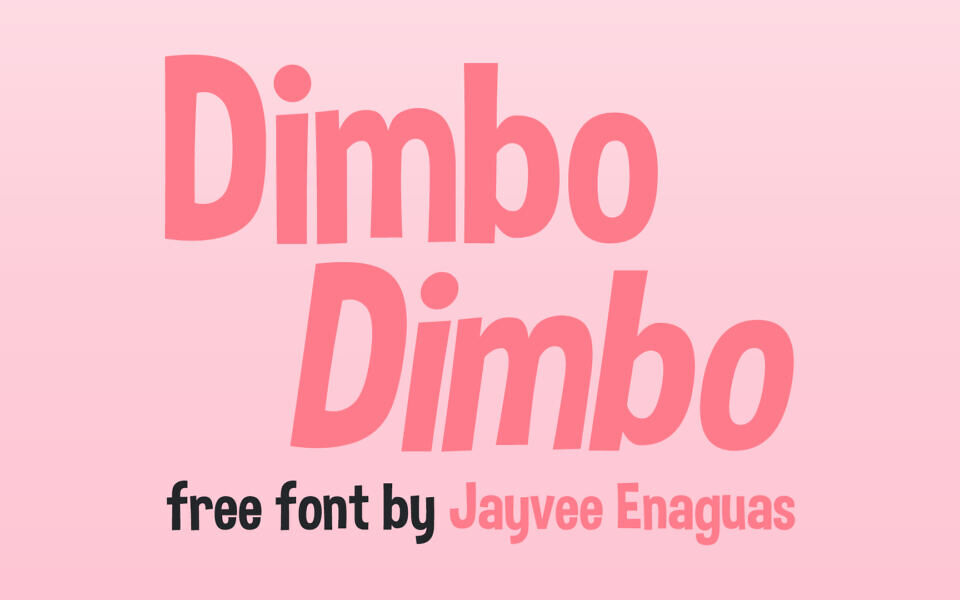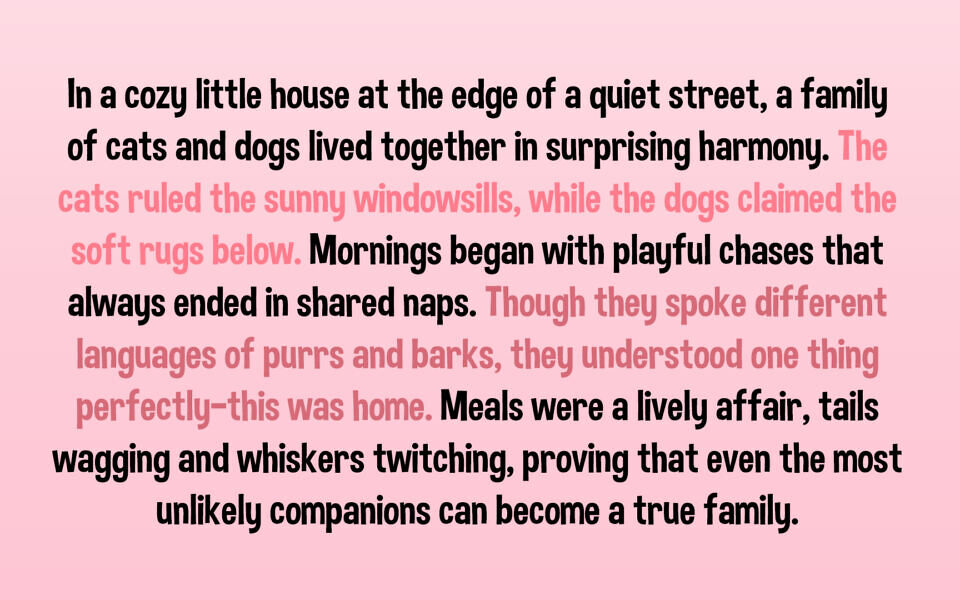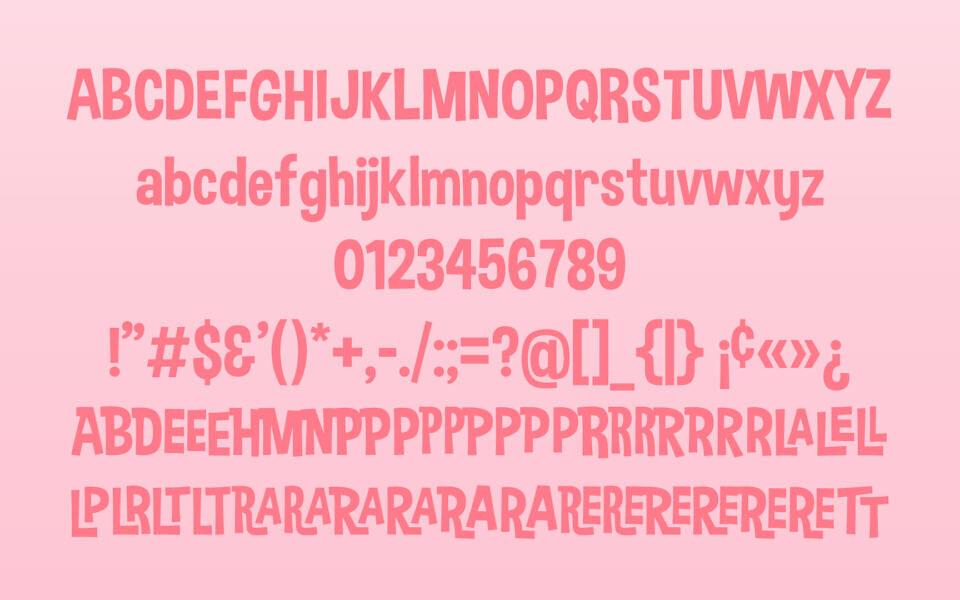
Dimbo is a playful cartoon-style typeface designed by Jayvee Enaguas, featuring bold, rounded letterforms that convey a fun and energetic personality. Inspired by whimsical storytelling aesthetics, it works well for comics, children’s content, and eye-catching titles.
The font includes regular and italic styles, supports multiple languages, and offers a wide glyph set with alternatives, making it versatile for creative projects. It is distributed as a free font under Creative Commons CC-BY-SA 3.0 license.